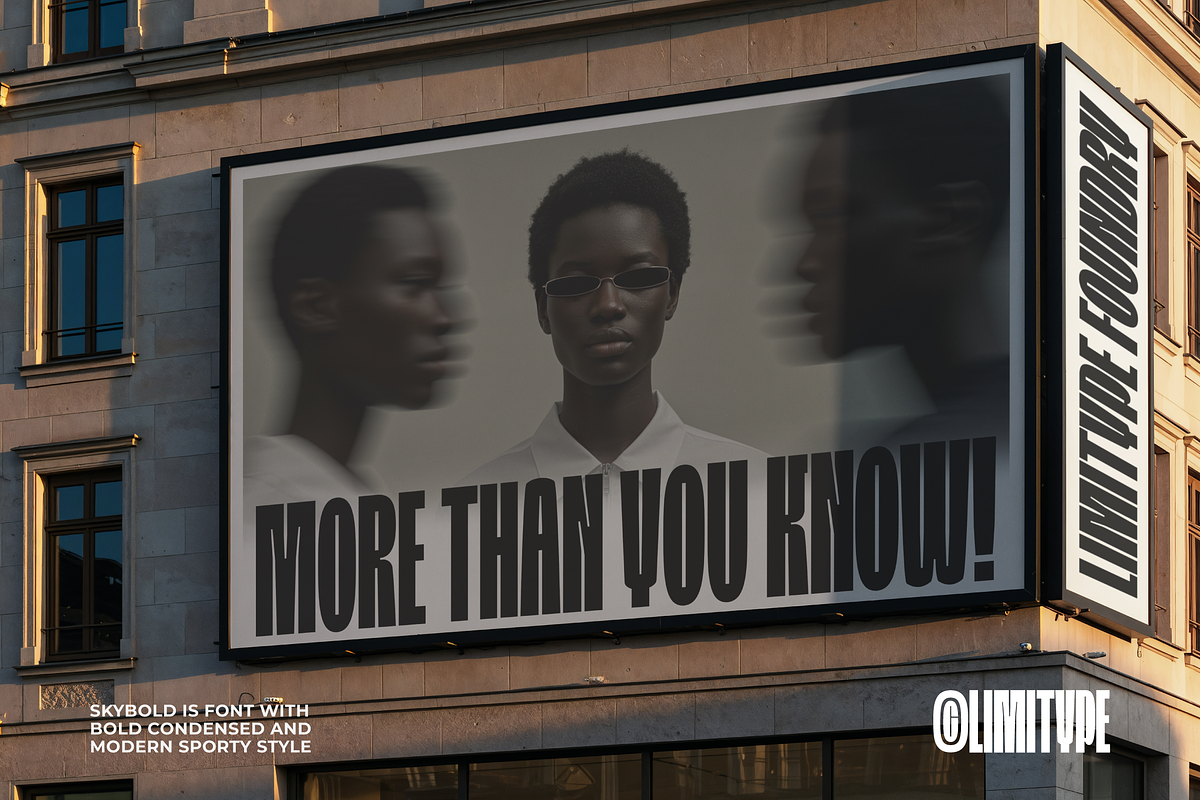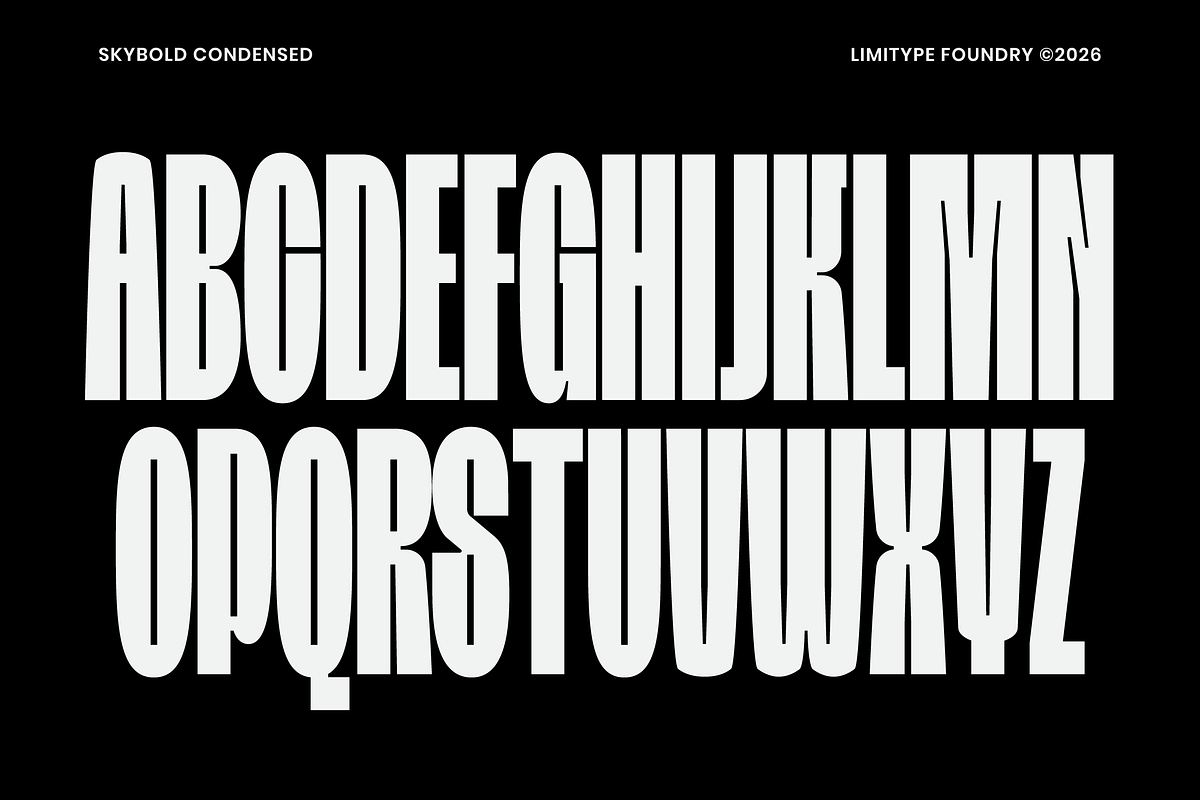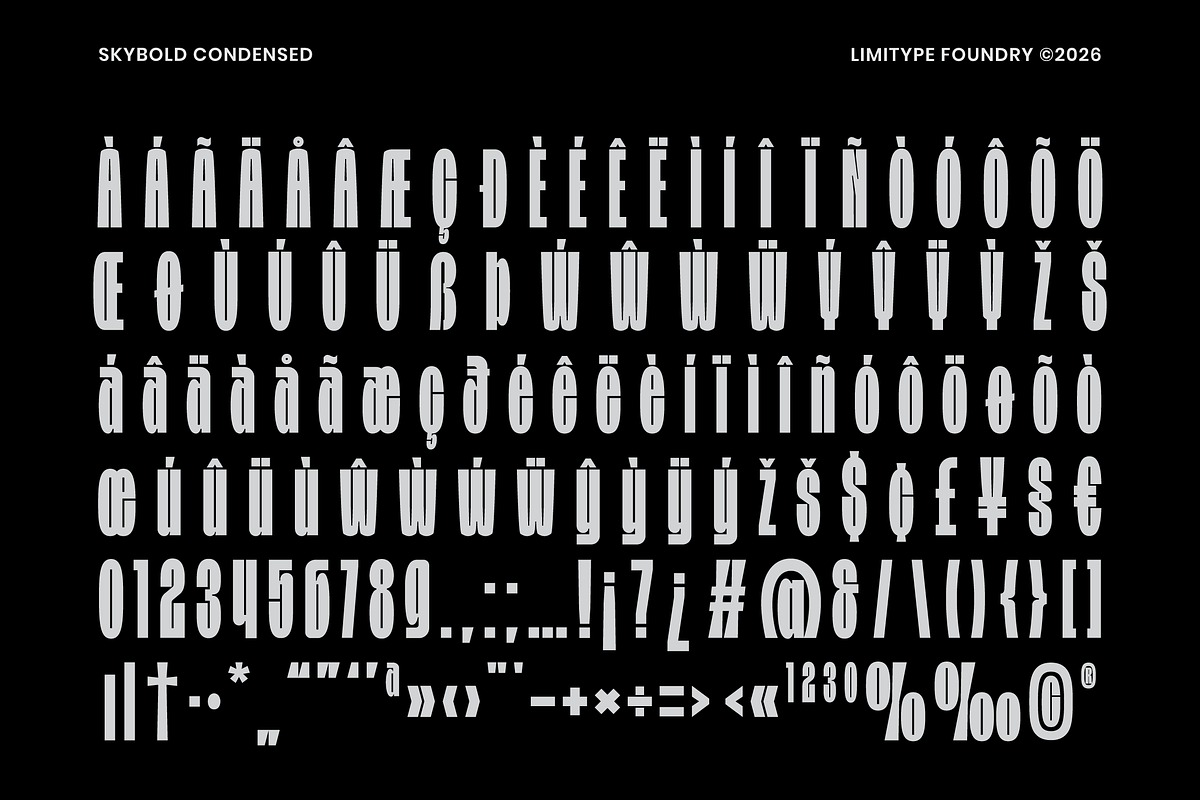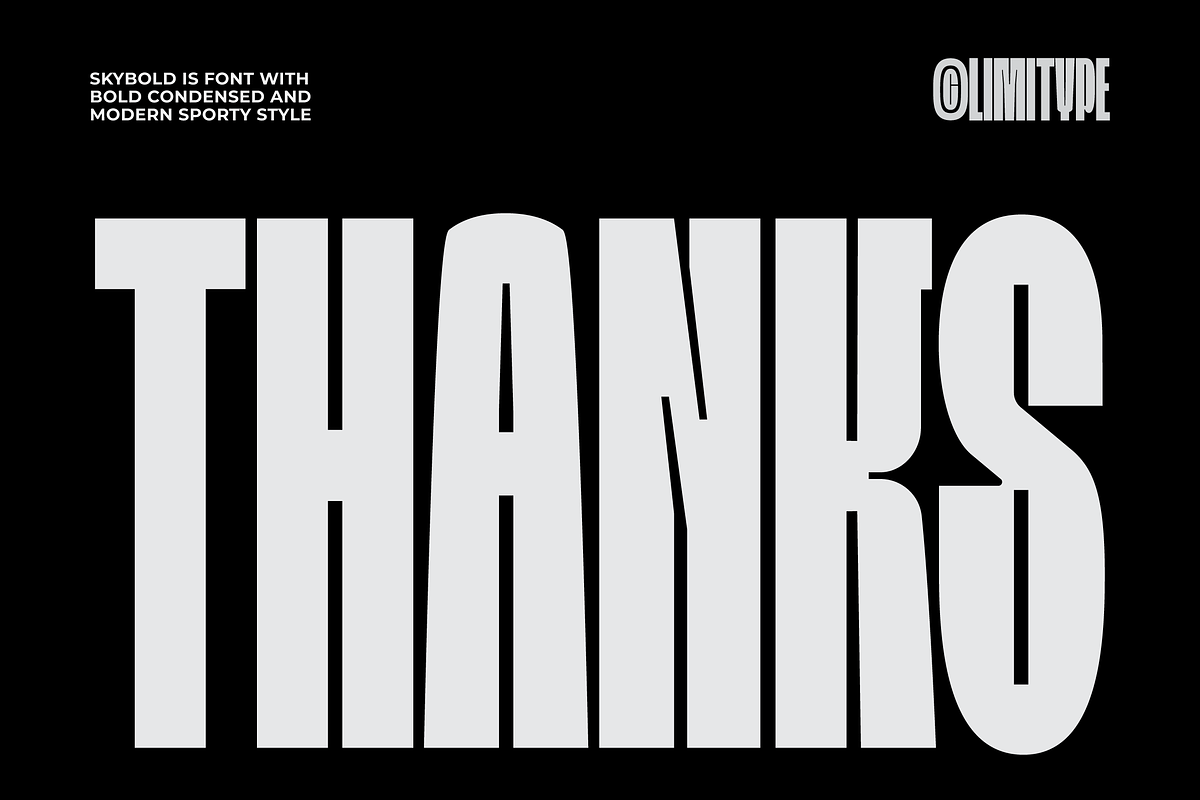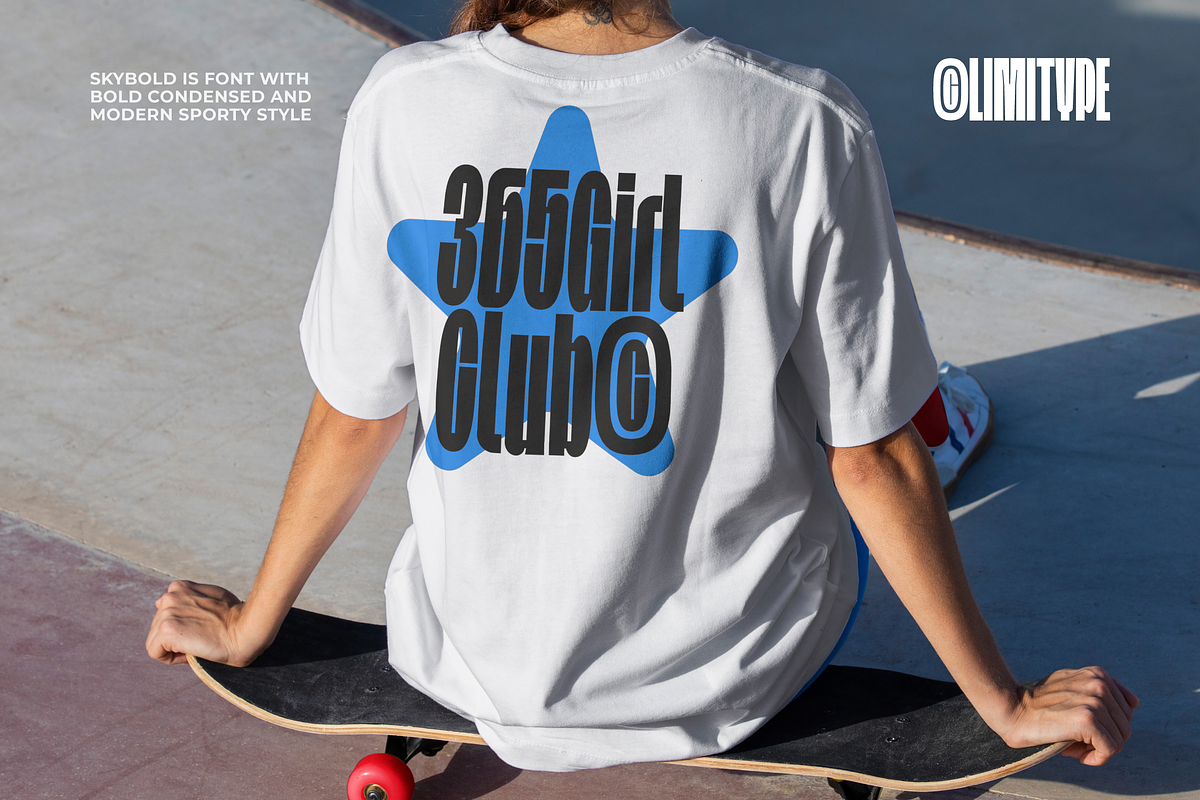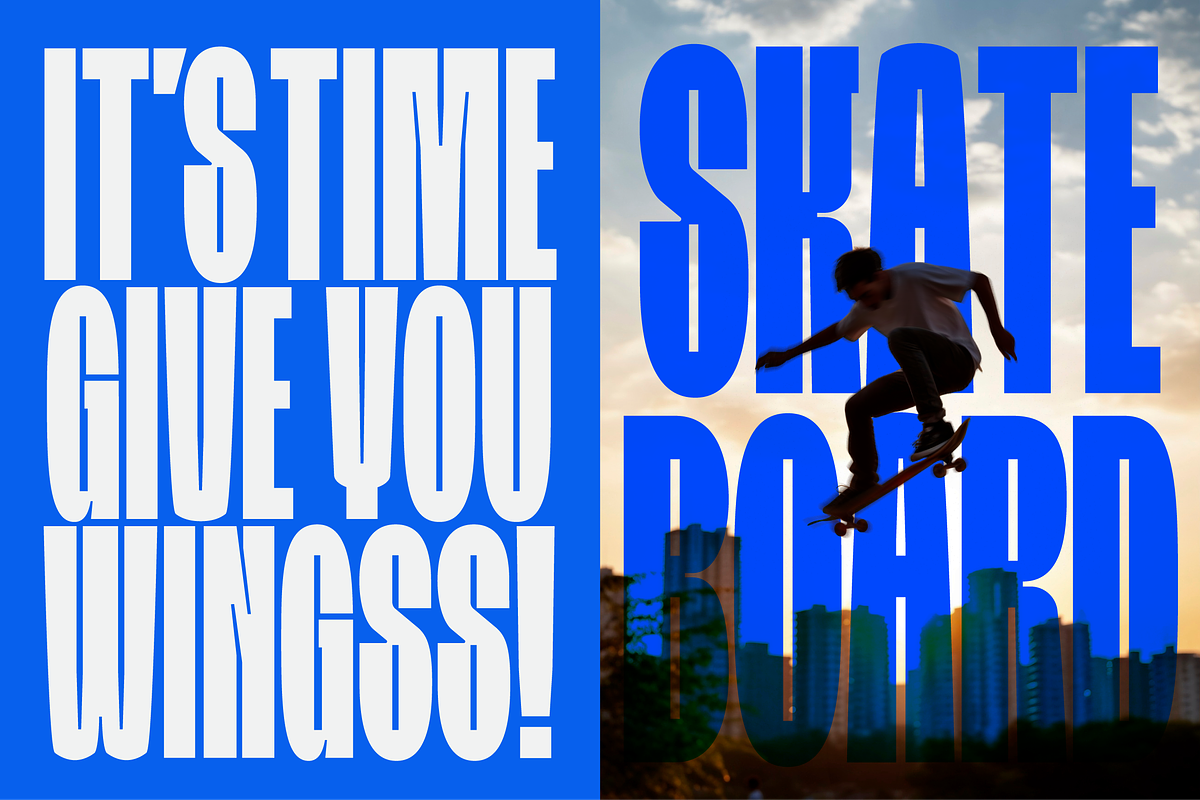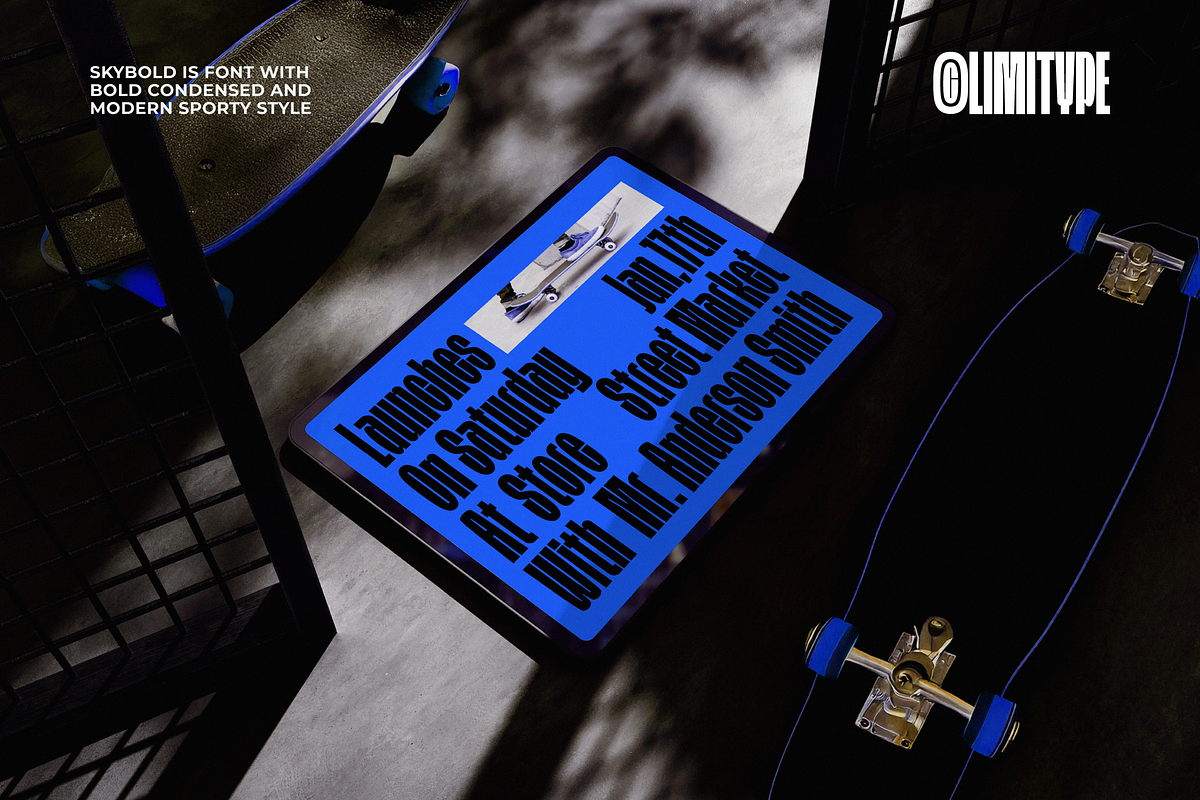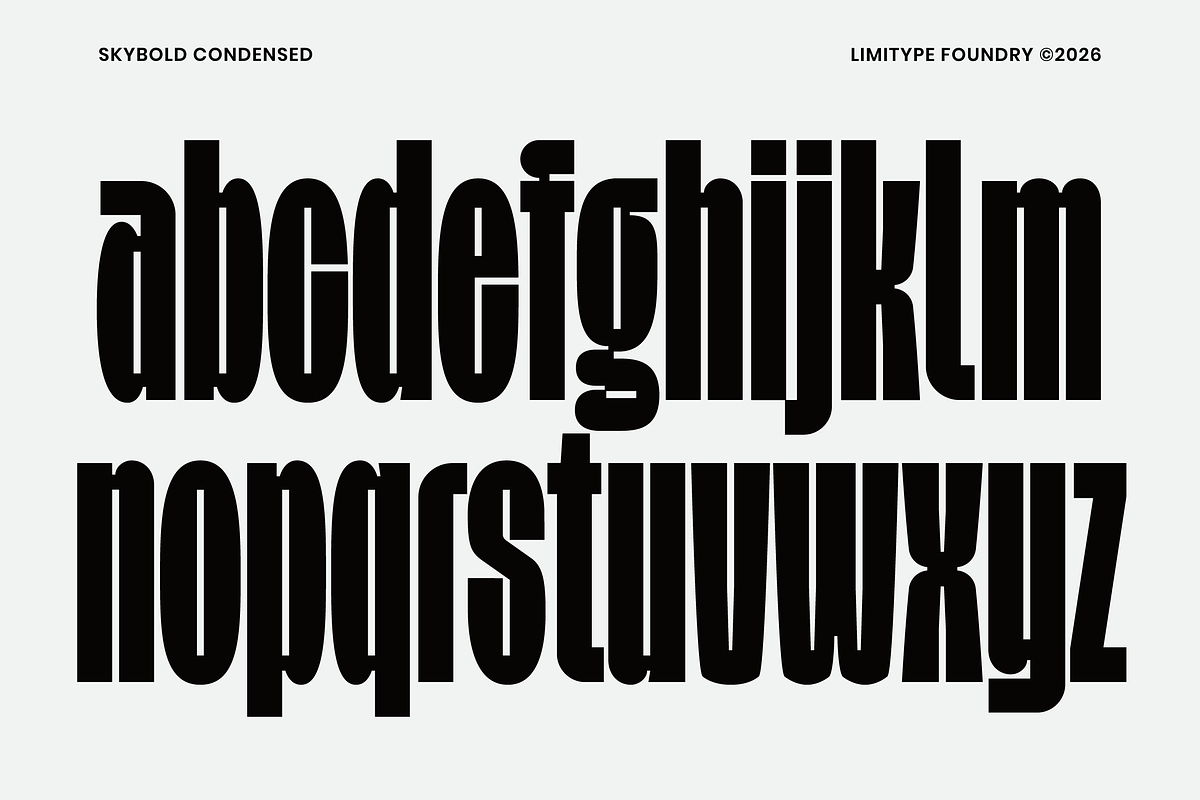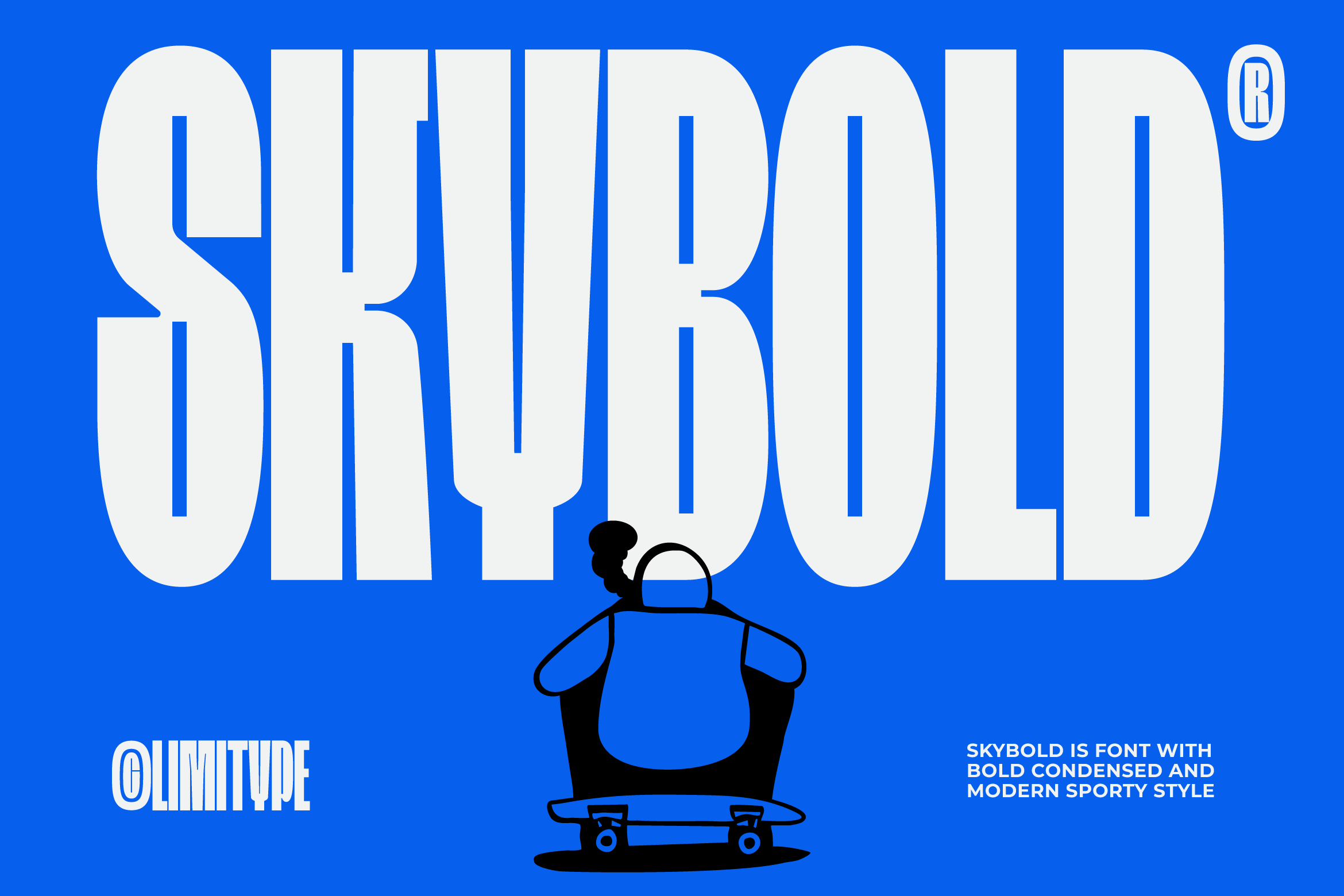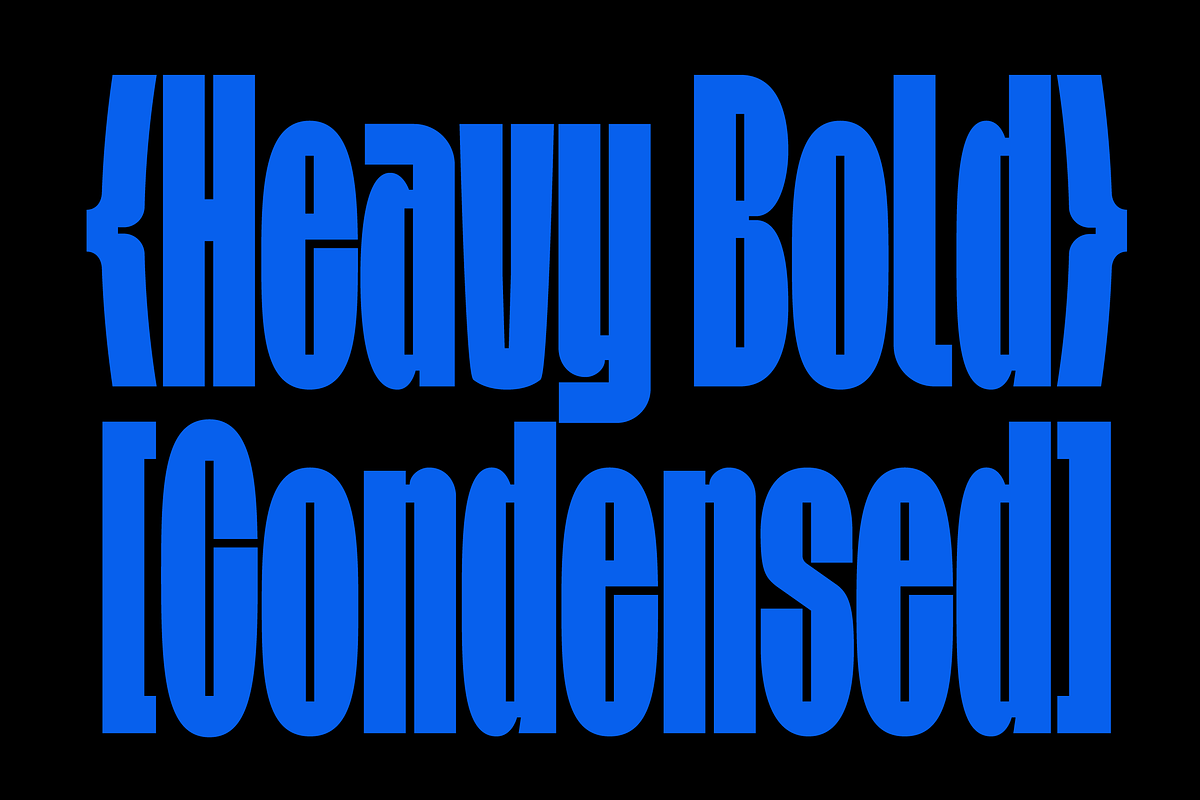
Skybold - Condensed Font
Skybold condensed font are designed for display and design needs that require bold and slim text, such as headlines, posters, logotypes, magazines, and similar media. With its slim, bold, and easy to read form, this font is highly applicable for various media and design styles that require a prominent appearance.